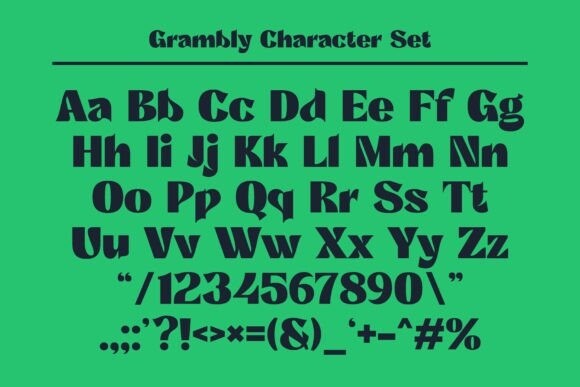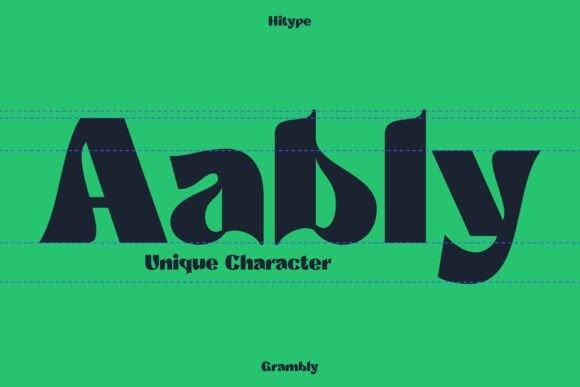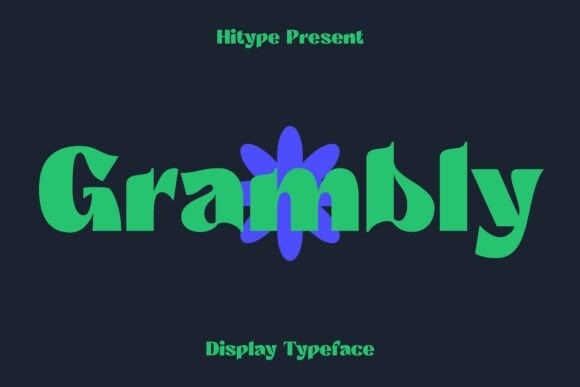
Grambly Font
Grambly Font is a bold sans serif and unique display typeface with a combination of elegant and bold styles that will make it stand out. Suitable for logos, stickers, posters, packaging, branding, invitations, notes, print, etc.